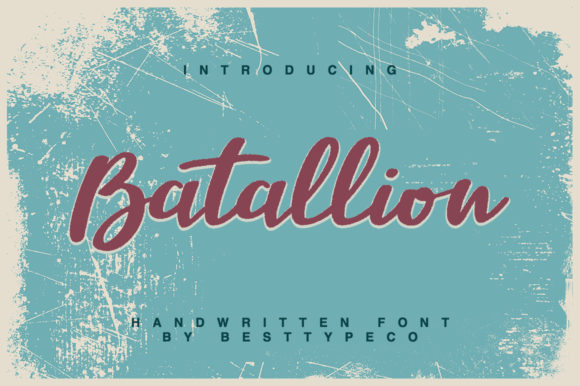
Unleash your creativity with Batallion, a brush handwritten font that dances across the digital canvas with its vivacious charm. Created by BennyDesigns, this script font possesses an innate ability to bring your artistic visions to life. Batallion is no ordinary font; it's an expression of individuality, a reflection of your unique style.
Unlike other fonts that fade into the background, Batallion demands attention with its bold strokes and captivating curves. Its dynamic design adds a touch of whimsy and playfulness to your projects, making them stand out from the mundane. Each letter, meticulously crafted, carries a story, a journey of imagination that weaves its way through your creations.
Step into a world of boundless creativity with Batallion. Its versatility knows no bounds, effortlessly adapting to a wide array of projects. Whether you're crafting logos that exude personality, designing social media posts that pop, or creating invitations that leave a lasting impression, Batallion is your trusted companion. Its friendly vibe adds a personal touch that resonates with audiences, forging an emotional connection that breathes life into your designs.
With Batallion, you'll experience a creative awakening. Its free-flowing style ignites your imagination, inviting you to explore new possibilities and push the boundaries of your artistic expression. Its carefully crafted details and organic textures add depth and character to your work, making it impossible to ignore.
So embrace the unconventional, the beautiful, and the captivating with Batallion. Let your creativity flourish, and let your designs speak volumes. Batallion is more than just a font; it's an artistic revolution waiting to be unleashed. Join the creative movement and unlock your true potential.